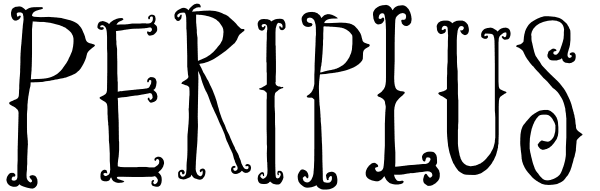
Periplus
I got rhythm, I got music, I got my swirls, who could ask for anything more? Periplus is quite an eccentric type, full of twists and nice oddities here and there. It is an all-caps font with 2 variations for each letter and number, stored at upper...